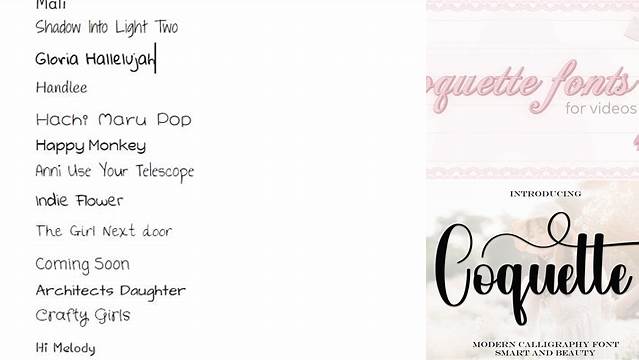
Charming Coquette Fonts For Google Docs: A How-To Guide
Hey guys! Ever wanted to add a touch of whimsy and charm to your Google Docs? Well, you're in the right place! We're diving into the delightful world of coquette fonts and how to sprinkle them all over your documents. Whether you're crafting a cute invitation, designing a lovely newsletter, or just want your notes to look extra adorable, we've got you covered. So, grab your digital pen, and let's get started!
What are Coquette Fonts?
Coquette fonts, at their heart, are all about blending sweetness with sophistication. Think of them as the typographic equivalent of a perfectly tied ribbon or a delicate lace trim. These fonts often feature elegant curves, playful swashes, and a generally light-hearted feel. They're not your standard Times New Roman or Arial; instead, they bring a unique personality to your text, making it feel more personal and engaging.
When you're aiming for a coquette aesthetic, you're looking for fonts that evoke feelings of femininity, grace, and a touch of vintage charm. These fonts can range from elegant scripts that mimic beautiful handwriting to serif fonts with delicate serifs and a gentle flow. The key is to find fonts that are visually appealing and have a certain softness to them. Imagine the fonts you might see on a vintage perfume label or a handwritten love letter – that’s the vibe we’re going for!
The beauty of coquette fonts lies in their versatility. While they're perfect for projects that call for a feminine touch, they can also be used to add a bit of elegance to more serious documents. For example, a coquette-style font can make a presentation more engaging or add a touch of personality to a business card. However, it's important to use them judiciously. Overusing such fonts can make your document look cluttered or unprofessional. The goal is to enhance your message, not distract from it. When selecting a coquette font, consider the overall tone and purpose of your document to ensure it complements your content perfectly. By carefully choosing and applying these fonts, you can transform your Google Docs from plain text into visually stunning creations that capture the essence of the coquette aesthetic.
Finding the Perfect Coquette Font for Google Docs
Alright, so how do you actually find these dreamy fonts for your Google Docs? Google Docs comes with a decent selection of fonts, but sometimes you need to venture out to find that perfect match. Here's a breakdown of where to look and what to consider:
1. Google Fonts
Google Fonts is your best friend. It's a massive library of free fonts that are super easy to integrate with Google Docs. Just click on the font menu in your Doc, select "More fonts," and start browsing!
When browsing Google Fonts for coquette options, use keywords like "script," "handwritten," "serif," and "display." Pay attention to fonts with elegant curves, delicate serifs, and a generally romantic feel. Some great options to start with include:
- Playfair Display: A classic serif font with a high contrast that exudes elegance.
- EB Garamond: Another beautiful serif font that's perfect for a refined, vintage look.
- Mrs. Saint Delafield: A lovely script font that mimics elegant handwriting.
- Great Vibes: A more dramatic script font that's perfect for headings and titles.
- Italianno: A flowing and romantic script font that adds a touch of whimsy.
Remember to test out different fonts to see how they look with your specific text. Not all fonts are created equal, and some may work better for certain purposes than others. Also, consider the legibility of the font, especially if you're using it for body text. While aesthetics are important, readability should always be a priority. With a little bit of searching and experimentation, you're sure to find a Google Font that perfectly captures the coquette aesthetic you're aiming for.
2. Third-Party Font Sites
If you're feeling adventurous, there are tons of other font websites out there. Sites like DaFont, Font Squirrel, and Creative Market offer a wide variety of fonts, both free and paid. Keep in mind that you can't directly upload fonts to Google Docs, so this method is more about finding inspiration and using fonts in other design projects.
When exploring third-party font sites, be sure to check the licensing terms before using any font. Some fonts are free for personal use only, while others require a commercial license. It's always better to be safe than sorry and ensure you're using fonts legally. Additionally, these sites often allow you to preview fonts by typing in your own text, which can be incredibly helpful in visualizing how the font will look in your project. Take advantage of these preview tools to experiment with different fonts and find the perfect match for your coquette-inspired designs. While you can't directly use these fonts in Google Docs, you can use them in other applications like image editors or presentation software, and then import the images or slides into your document. This approach opens up a world of possibilities and allows you to incorporate a wider range of unique and stylish fonts into your projects.
3. Font Pairing
Don't be afraid to mix and match fonts! Font pairing is an art, but it can really elevate your document's design. Try pairing a coquette script font for headings with a simple serif or sans-serif font for body text. This creates a nice contrast and keeps your document readable.
When pairing fonts, look for fonts that complement each other in terms of style and weight. For example, a delicate script font like "Mrs. Saint Delafield" pairs well with a clean and modern sans-serif font like "Open Sans." The script font adds a touch of elegance and personality to the headings, while the sans-serif font ensures that the body text remains easy to read. Another approach is to pair a bold and decorative serif font with a lighter, more understated sans-serif font. This can create a visually striking contrast that draws the reader's eye to key elements of your document. Experiment with different combinations and see what works best for your particular project. Remember that the goal is to create a cohesive and visually appealing design that enhances your message, not distracts from it. By carefully selecting and pairing fonts, you can create documents that are both beautiful and effective.
- Be Consistent: Stick to a consistent font scheme throughout your document to maintain a professional look.
Adding coquette fonts to your Google Docs can be a fun and easy way to add personality and charm to your projects. Just remember to use them thoughtfully and strategically. With a little experimentation, you'll be creating beautiful, coquette-inspired documents in no time! Happy designing, guys!